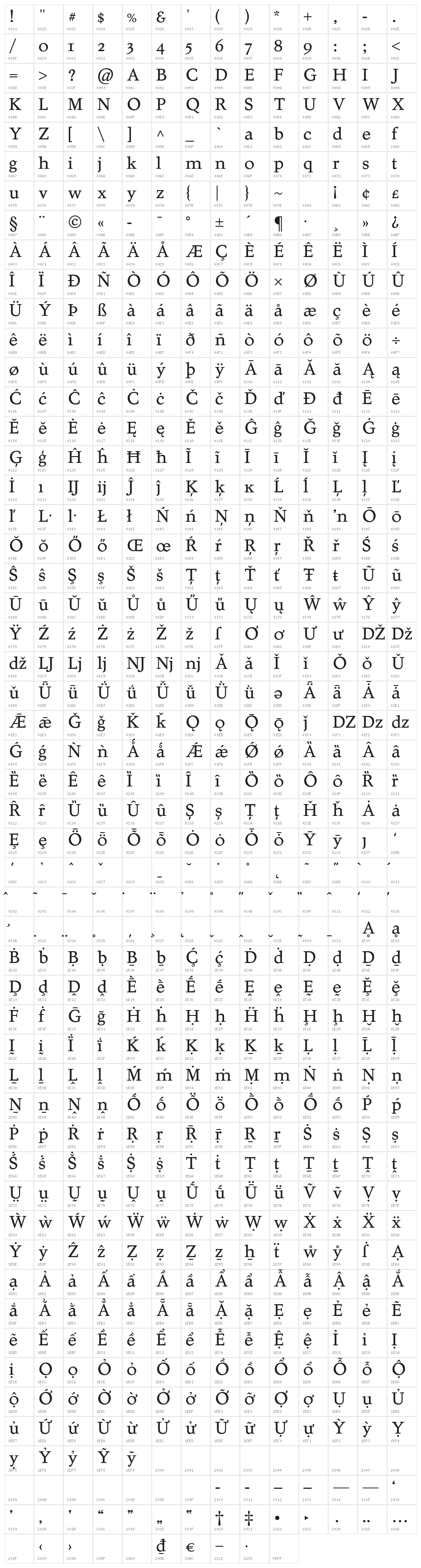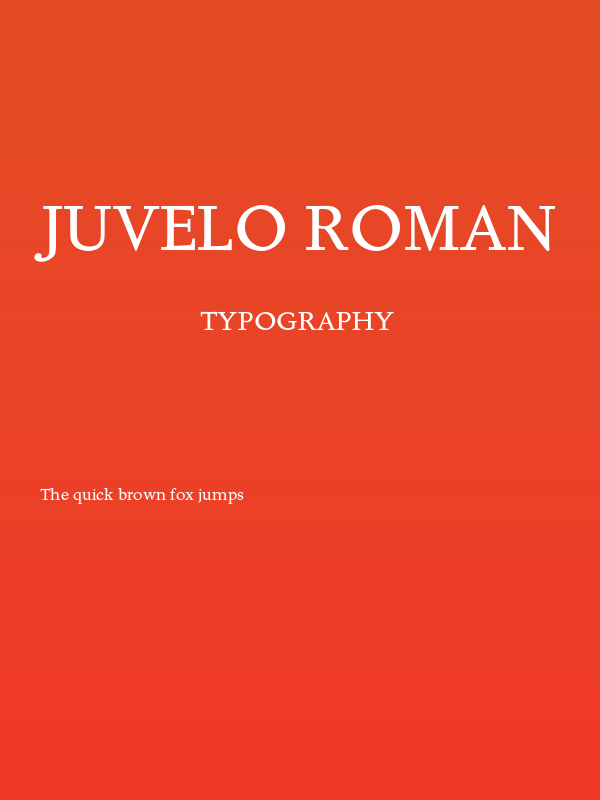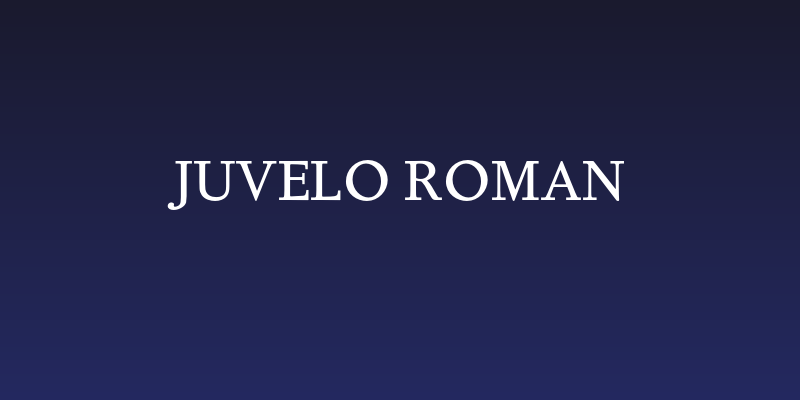
Juvelo Roman Font
Juvelo Roman Description
This font features a classic serif style with elegant and refined strokes, embodying a timeless aesthetic. The uppercase letters are bold and prominent, while the lowercase letters maintain a consistent and harmonious flow. The numerals are clear and easily distinguishable, making them suitable for both formal and informal settings. Special characters are well-integrated, providing versatility for various design needs. The overall appearance is sophisticated, making it ideal for projects that require a touch of elegance and tradition.
| Proposed Projects | Ideal for book covers, formal invitations, editorial layouts, and branding materials that require a classic and sophisticated look. |